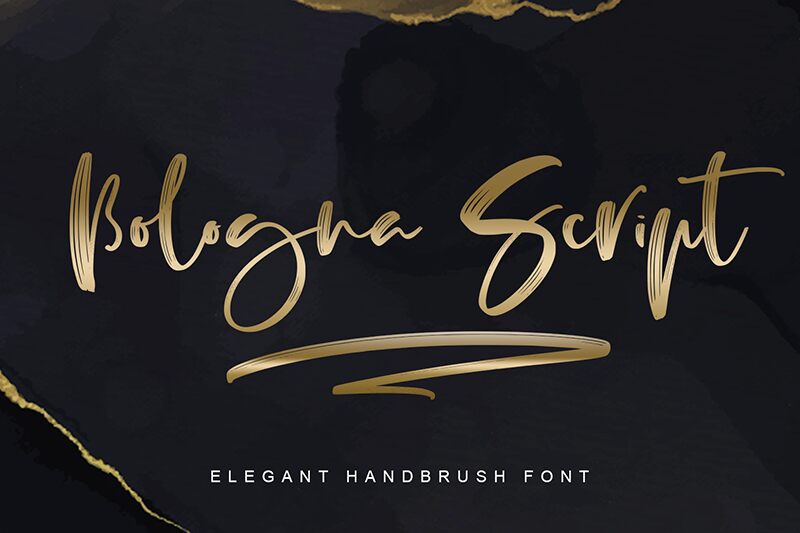
Bologna Script
Introducing Bologna Script, a light brush font designed by Abo Daniel. Its elegant and dynamic strokes make it suitable for projects that require a creative touch, such as invitations, book covers and posters. Its playful feel will add personality to any design, making it perfect for brands looking to stand out from the crowd.